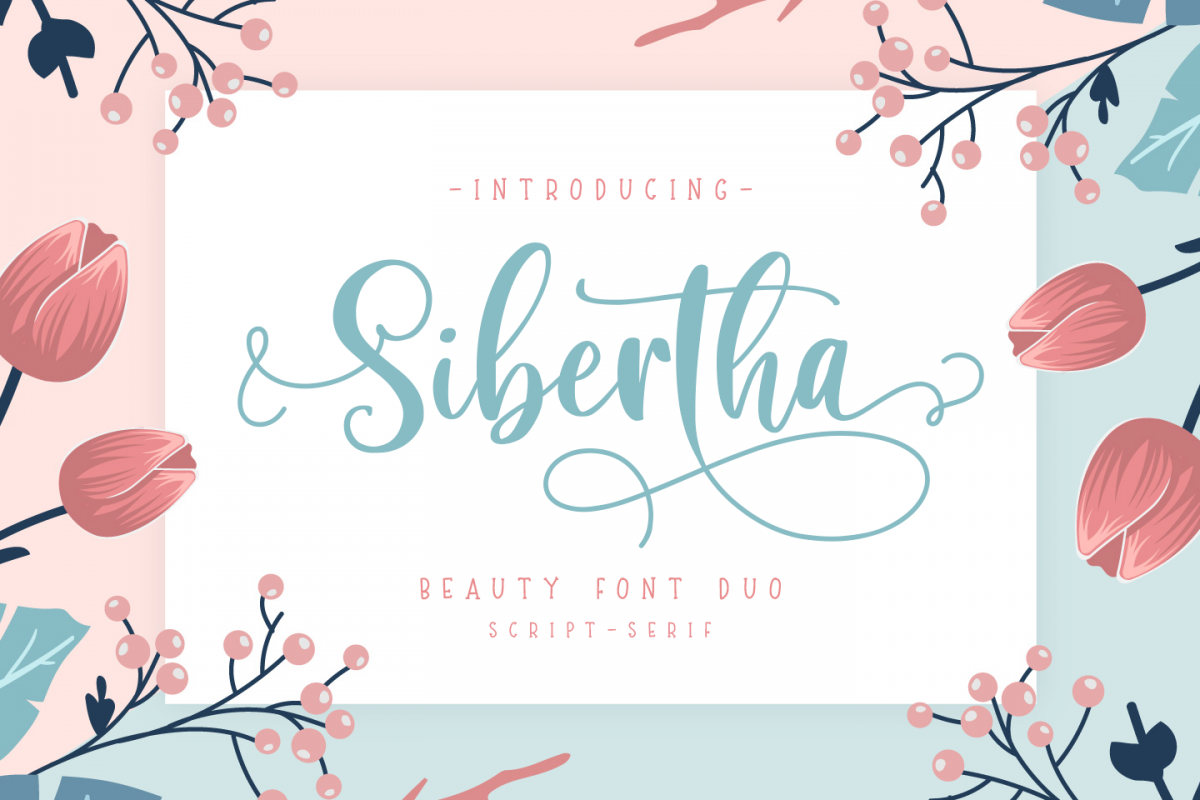
Sibertha - Font Duo -
Sibertha serif
Sibertha script
Introducing
SIBERTHA
- Beauty Font Duo -
( Script and Serif )
It's very perfect couple fonts
• It has an alternate
set for uppercase and lowercase character,
• Ending and Titling Swash (lowercase only),
• numbers,
punctuation, ligatures and it also supports multilingual.
It